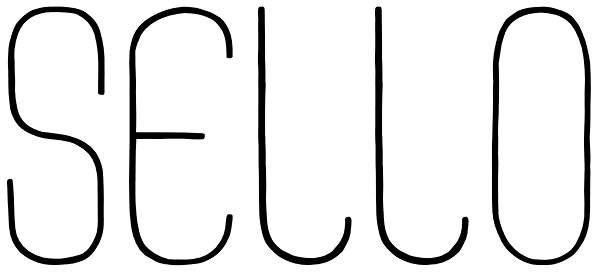
Sello
Sello is a hand-drawn, geometric sans-serif with a touch of retro style. It's a unicase typeface inspired by hand-engraved, mid-1960s Spanish postage stamps, hence the name "Sello" – Spanish for "stamp". This font comes in three different weights...